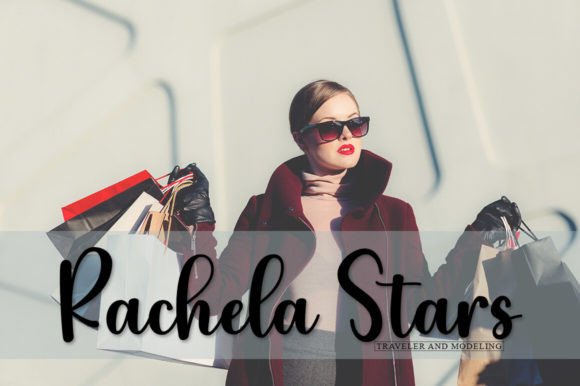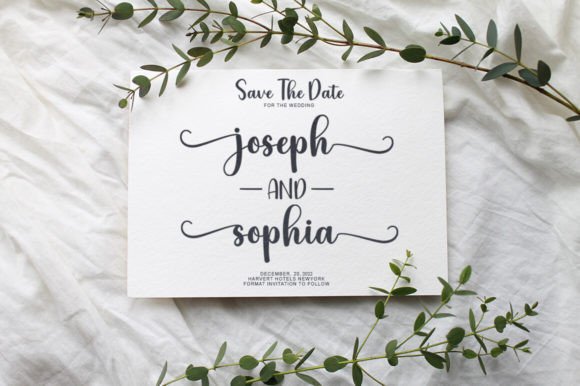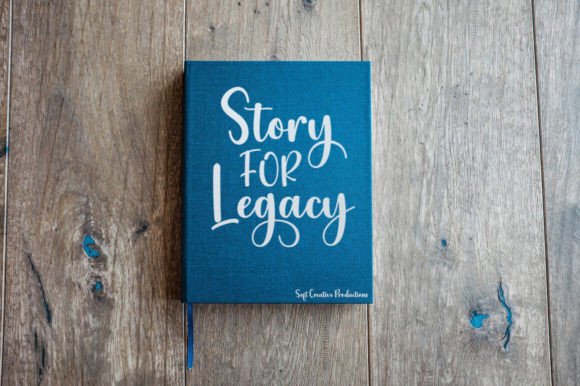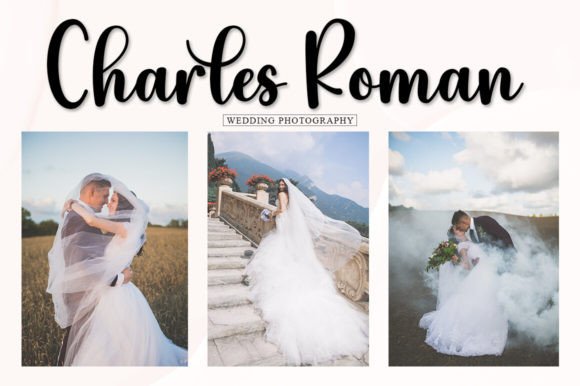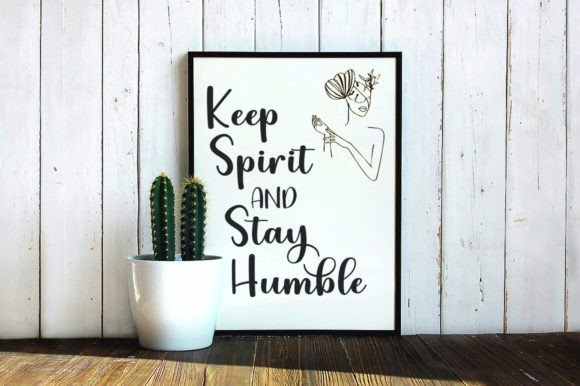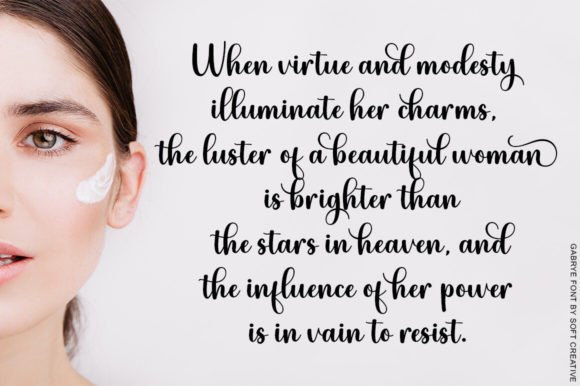
Introduction to Gabrye Font
Have you ever been brainstorming a creative project, and suddenly a spark of inspiration hits you? The ideas start flowing, and you can almost see the final product taking shape in your mind. For designers, these moments are the bread and butter of their work. But what sets a project apart from the rest is the choice of font. That’s where the Gabrye Font comes in – a sweet, all-round, and flexible handwritten font that’s sure to elevate your design to the next level.
With its warm, romantic, and jolly vibe, the Gabrye Font is the perfect addition to any design resource. Whether you’re working on a free download project or a high-quality commercial design, this font is sure to bring a touch of magic to your creative project. And with its transparent background, you can easily combine it with other design elements to create a truly unique look.
Key Features of Gabrye Font
- Unique, hand-drawn design with a transparent background, perfect for creative projects requiring a touch of elegance.
- Includes a wide range of characters, including uppercase and lowercase letters, numbers, and special symbols, making it a versatile design resource.
- Suitable for various design applications, including graphic design, digital art, and typography-based projects.
Honest Review: Gabrye Font
I recently had the chance to work with the Gabrye Font, and I must say it’s been a delightful experience. As a designer, I’m always on the lookout for high-quality design resources that can elevate my creative projects.
Here’s what works well: ✨ The Gabrye Font is incredibly versatile and can be used for a wide range of projects, from logos and branding to web and print designs. Its unique, elegant style is sure to make your designs stand out. Additionally, the font is available for free download, which is a major bonus for designers on a budget.
Some notable features of the Gabrye Font include:
- Transparent background: This makes it easy to combine with other design elements and create a cohesive look.
- High quality: The font is crisp and clear, even at smaller sizes.
However, there are a few limitations to keep in mind: ⚠️ The Gabrye Font may not be suitable for projects that require a more modern or edgy feel. Additionally, some users may find the font a bit too ornate for certain design applications.
Overall, I’m impressed with the Gabrye Font and would definitely recommend it to designers looking for a high-quality, versatile font for their creative projects. With its free download option and transparent background, it’s a valuable addition to any design resource library.
Getting the Most Out of Gabrye Font
To get the most out of Gabrye Font, use it in conjunction with other design resources, such as images and shapes. Experiment with different font sizes, colors, and styles to create a unique and eye-catching design. Remember to save your design as a high-resolution image or PDF to ensure the best quality.
Gabrye Font is commonly used in design projects that require a touch of sophistication, such as:
- Social media graphics and advertising